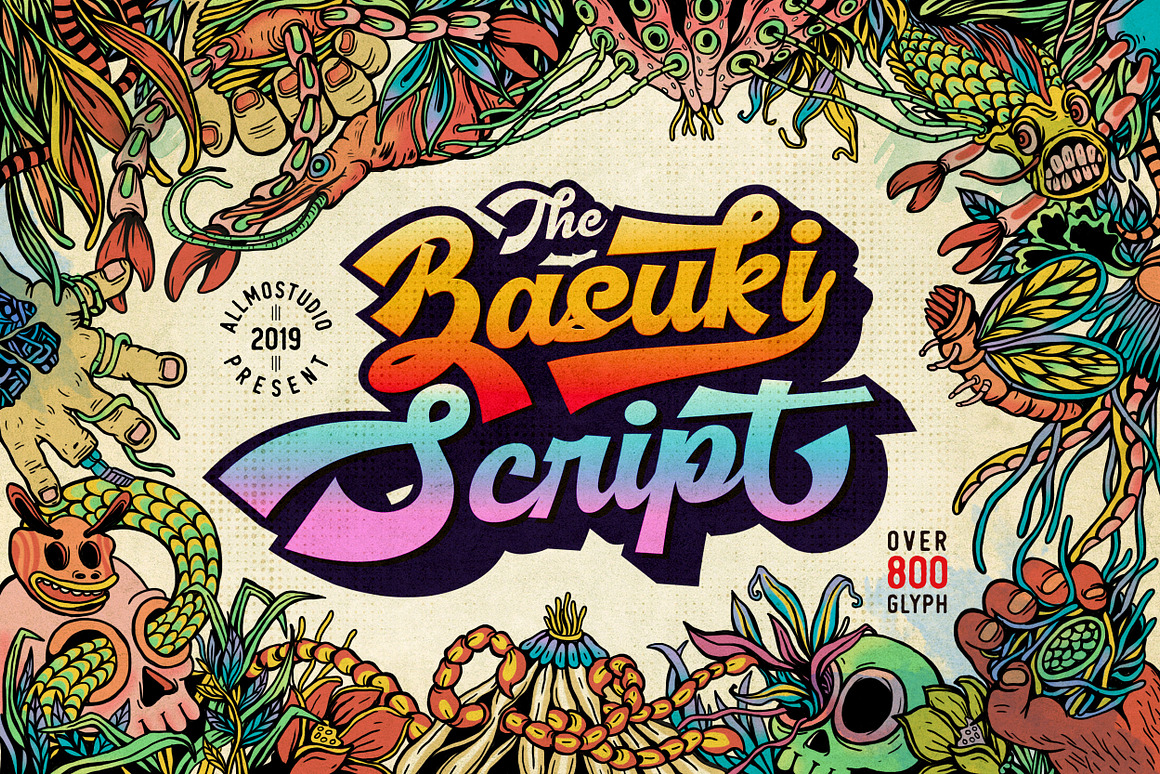
Basuki Script Font
Basuki Script Font is perfect for Indonesian cultural branding, Southeast Asian restaurant menus, traditional craft packaging, heritage tourism campaigns, cultural festival materials, artisanal product labeling, authentic food marketing, and Indonesian lifestyle designs.
What makes Basuki Script Font exciting is its culturally authentic character that captures the flowing elegance and artistic heritage of Indonesian script traditions through gracefully handwritten letterforms that seem crafted with the wisdom and cultural pride of Southeast Asian artistic traditions. The font features organic connecting strokes with traditional details that evoke the personal touch and cultural authenticity found in Indonesian handwriting and traditional artistic expression. Its cultural aesthetic and Indonesian authenticity make it perfect for brands that want to communicate heritage pride, cultural authenticity, and the rich artistic traditions that define Indonesian culture while creating memorable experiences that honor Southeast Asian heritage and celebrate cultural diversity.
Basuki Script Font family includes various traditional script weights such as Light, Regular, and Bold variations, often featuring Indonesian-inspired alternates and cultural decorative elements. The family may include traditional symbols, heritage ornaments, and cultural ligatures that enhance the font's authentic aesthetic, providing designers with comprehensive options for creating meaningful typographic compositions that celebrate Indonesian culture and Southeast Asian artistic traditions.